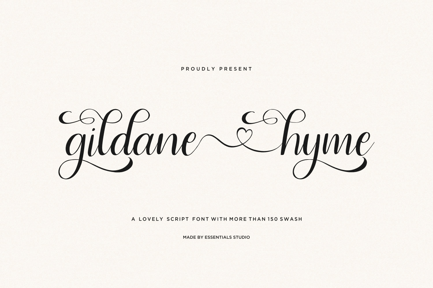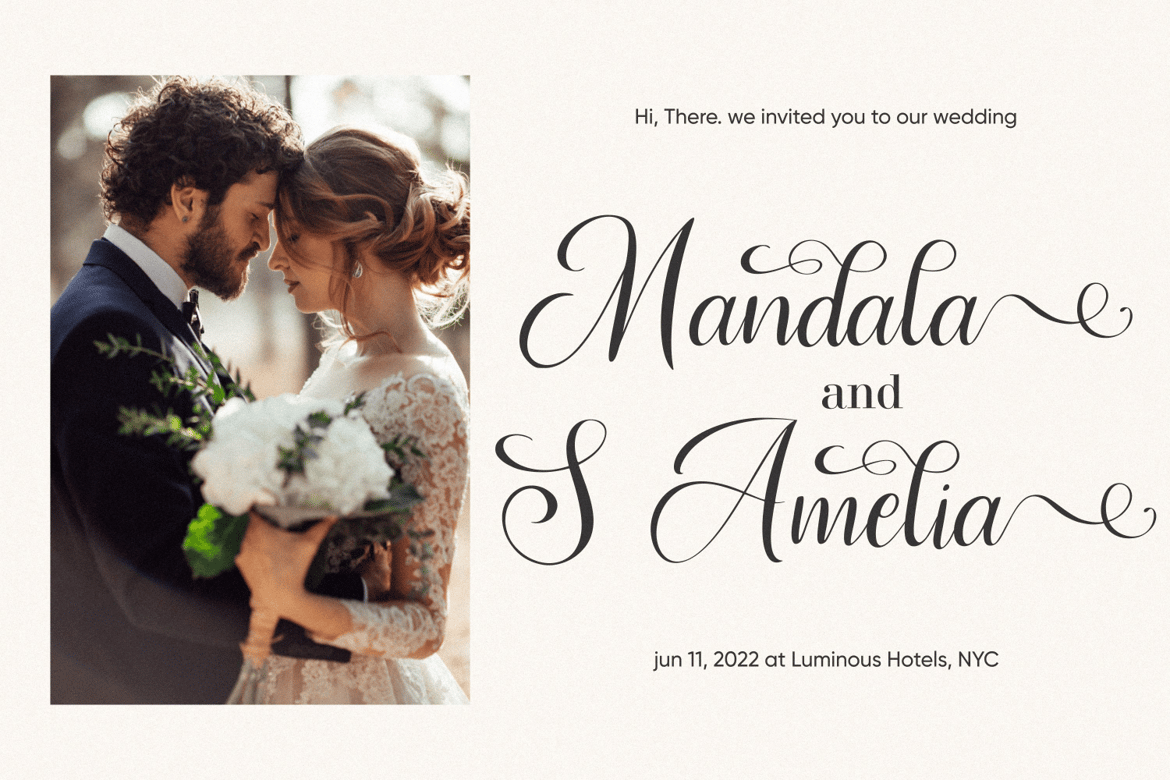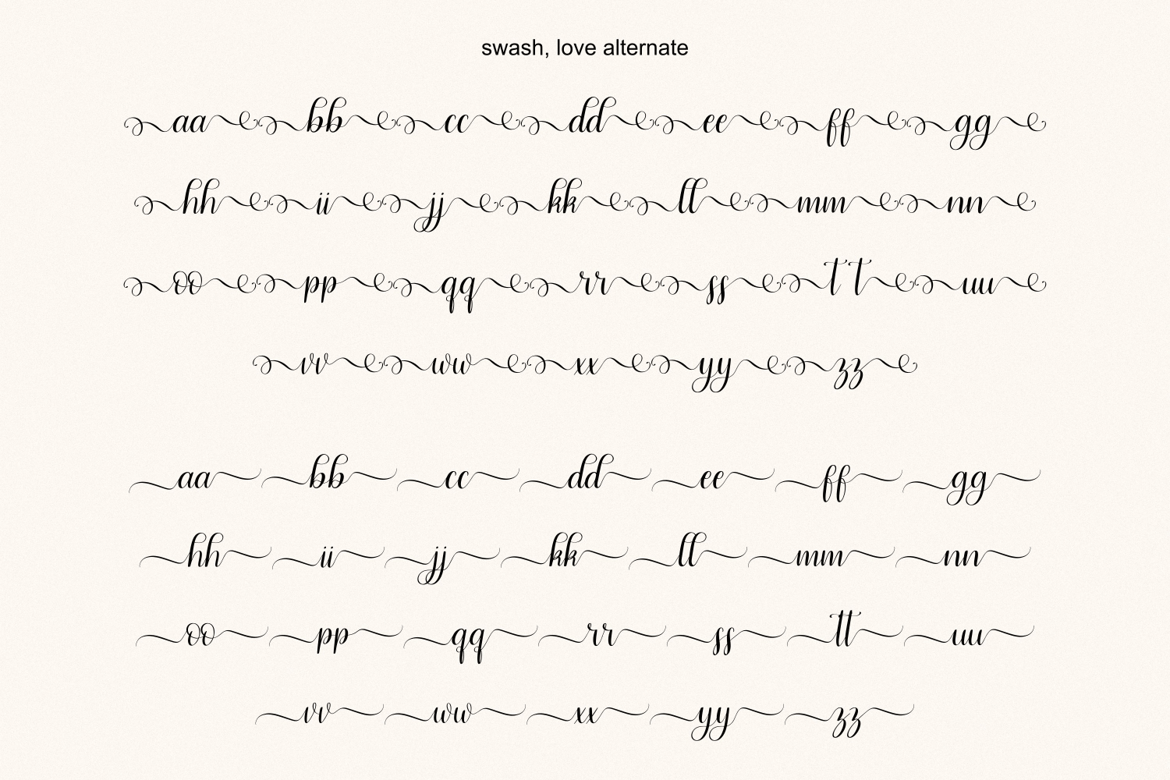
ES Gildane Hyme – Connected Love Script Font
Proudly Present, Gildane Hyme Is a Handwritten Long Tail Script Font With Swash and Ligature More Than 400 Glyphs + Stylish Swash, Love, and Alternate
Gildane Hyme is perfect for product packaging, branding project, Wedding, Valentine, day, megazine, social media, wedding, or just used to express words above the background.